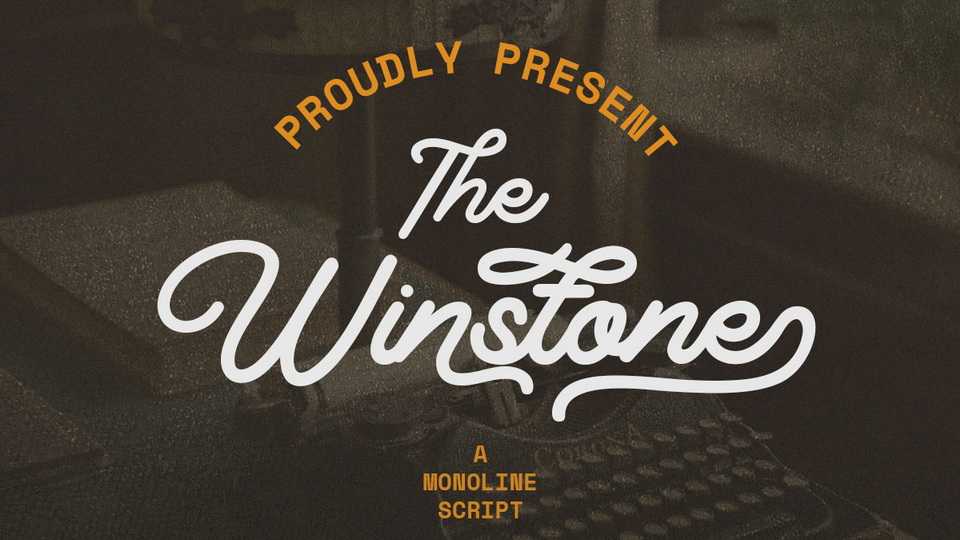
Download Winstone font, a classy monoline font with swash and ligature that looks modern and perfect for your project. Winstone is perfect for branding projects, logo, wedding designs, social media posts, advertisements and so on.
Designer: dealitastudio